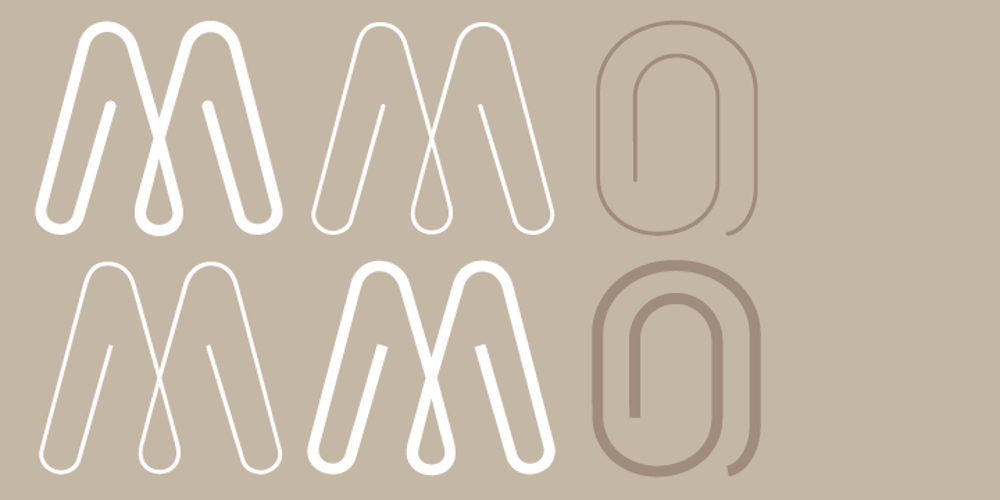
Morice Round Font Family was designed by Morice Kastoun and published by Letterbox. Morice Round contains 4 styles and family package options. Deceptively simple in its lineal structure, Morice concisely expresses the essence of each letterform with a quiet elegance. There are several variations within the Morice family – with rounded or straight terminals being offered, each giving a slightly different typographic pitch to settings.